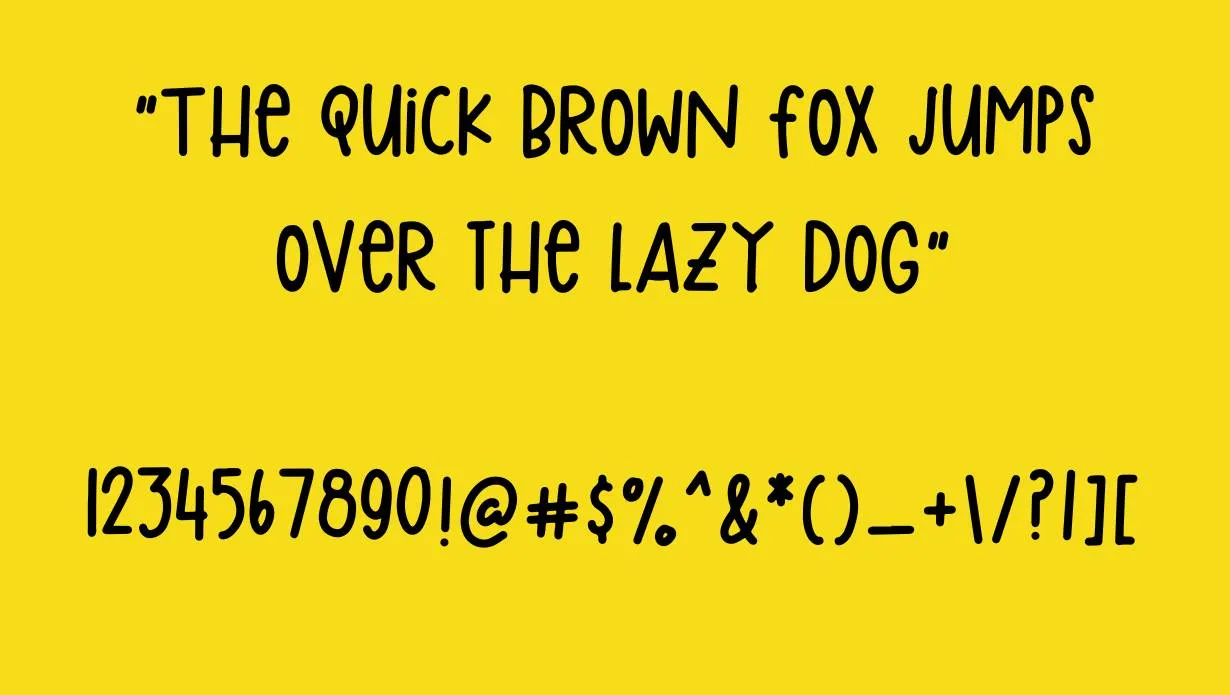
The Hungry Fox font is like a playful companion for your words. With its friendly and rounded style, it’s perfect for creating charming food menus, designing cute children’s book covers, or adding a touch of whimsy to your culinary branding.
| Name | Hungry Fox Font |
| Designer | Andrew Paglinawan |
This font has a medium weight and standard width, making it easy to read and giving your words a delightful appearance. Picture using the Hungry Fox font for a bakery logo, infusing your branding with a dash of culinary charm.